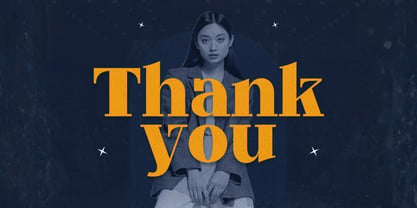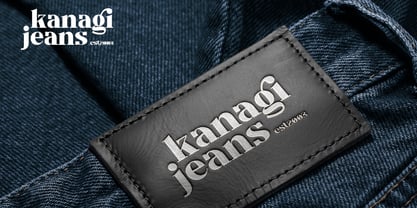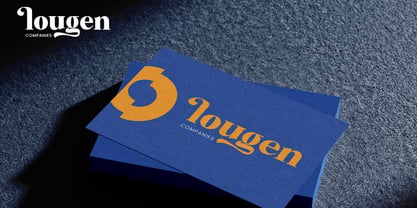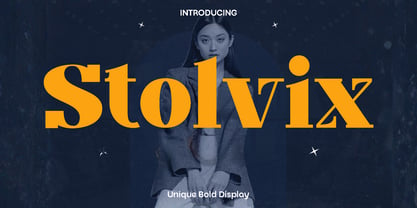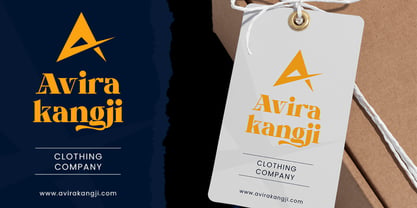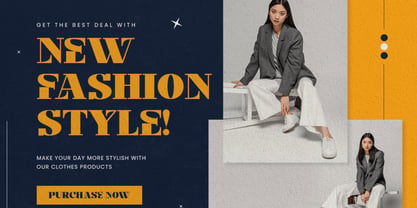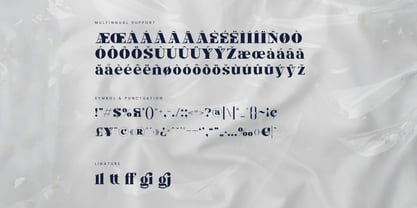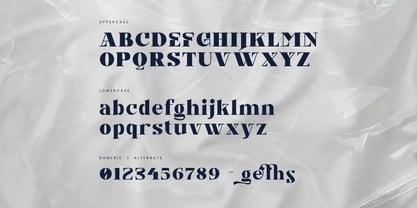
Stolvix
by Only Fonts
The Stolvix Font Family was designed by Olivia Love and published by Only Fonts. Stolvix contains 1 styles. More about this family
Stolvix is a bold display typeface that commands attention with its strong, powerful letterforms and contemporary aesthetic. Built for impact, Stolvix features distinctive character shapes that balance robust weight with clean, geometric precision. The typeface combines structural confidence with modern sensibility, making it ideal for projects that require a statement-making presence without compromising legibility or refinement. Where Stolvix excels: Corporate branding and identity: Logos, wordmarks, and brand systems for companies seeking authority and modernity, from tech startups to established enterprises. Editorial and publishing: Magazine mastheads, article headlines, section dividers, and book titles that need visual dominance and contemporary polish. Advertising and campaigns: Posters, billboards, promotional materials, and digital ads where strong typography must cut through visual noise and leave a lasting impression. Packaging and retail: Product packaging, point-of-sale displays, and shelf signage where bold headlines need to attract customers instantly. Display and signage: Building fascias, environmental graphics, and large-format installations where Stolvix's robust construction ensures clarity at any scale. Standout features: Uppercase and lowercase letterforms with distinctive, memorable character shapes that feel both authoritative and contemporary. Symbols and punctuation carefully crafted to match the typeface's powerful geometry and visual weight. Numerals and mathematical symbols designed with lining proportions, making them ideal for data displays, pricing, and technical applications. Ligatures that refine letter pair interaction and add subtle sophistication to word combinations. Multilingual support ensuring Stolvix's commanding presence translates reliably across regions and alphabets worldwide. Choose Stolvix when your design brief demands maximum visual impact combined with contemporary refinement. It delivers powerful headlines, striking logos, commanding posters, and unforgettable branding that makes a statement while remaining thoroughly modern and legible across both print and digital applications.
Designers: Olivia Love
Foundry: Only Fonts